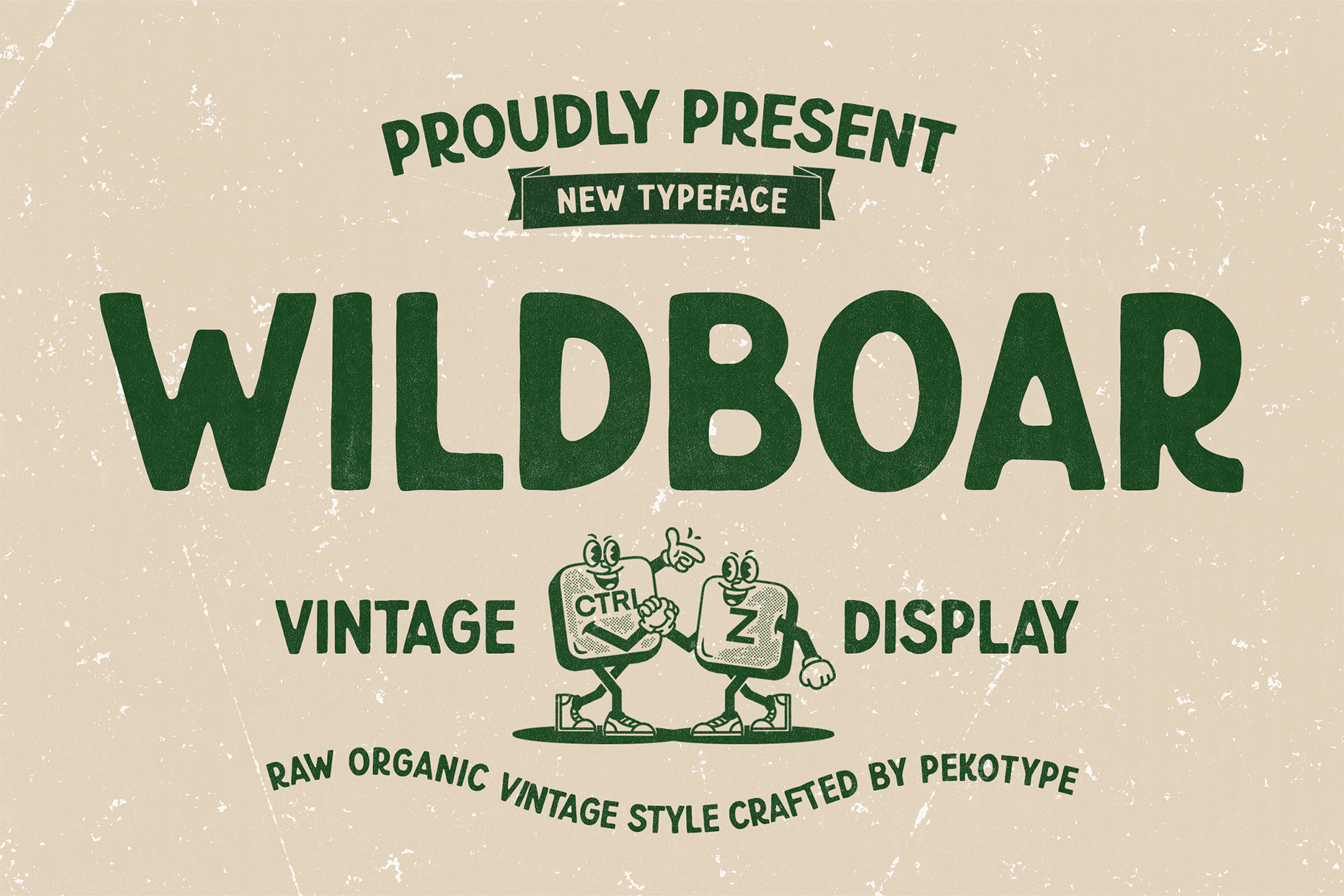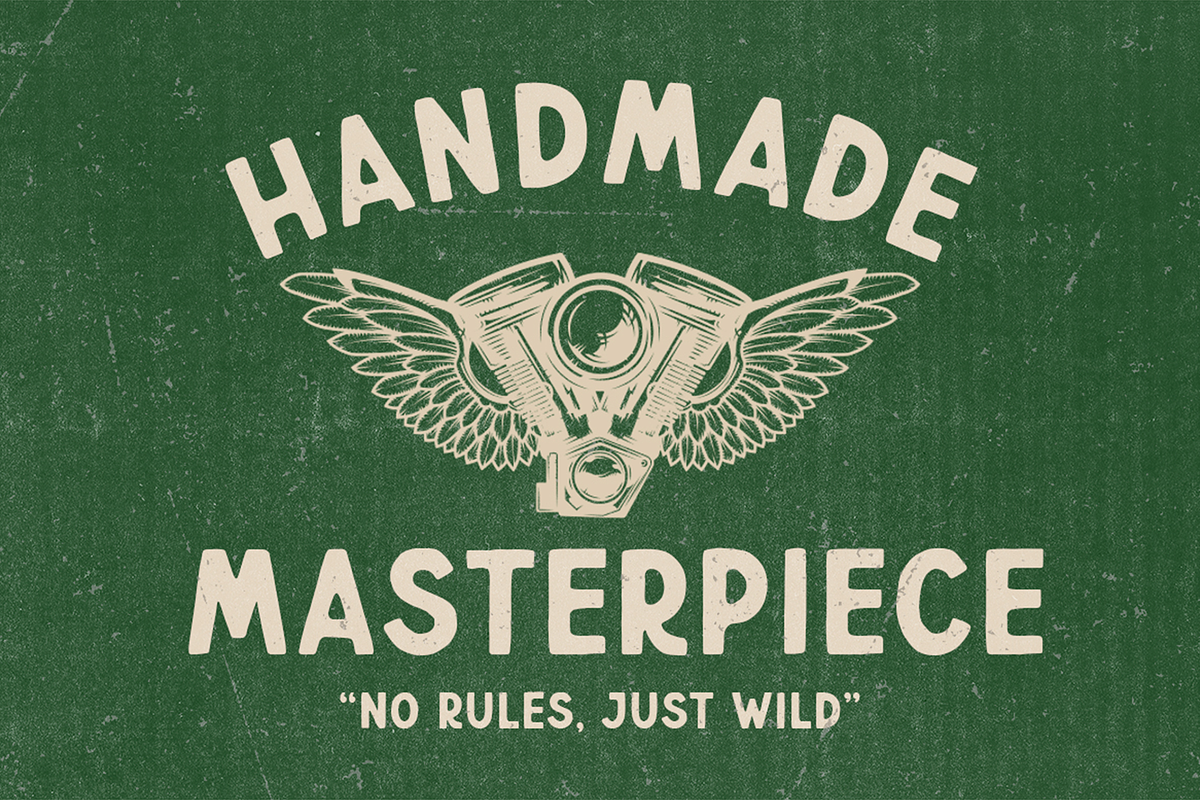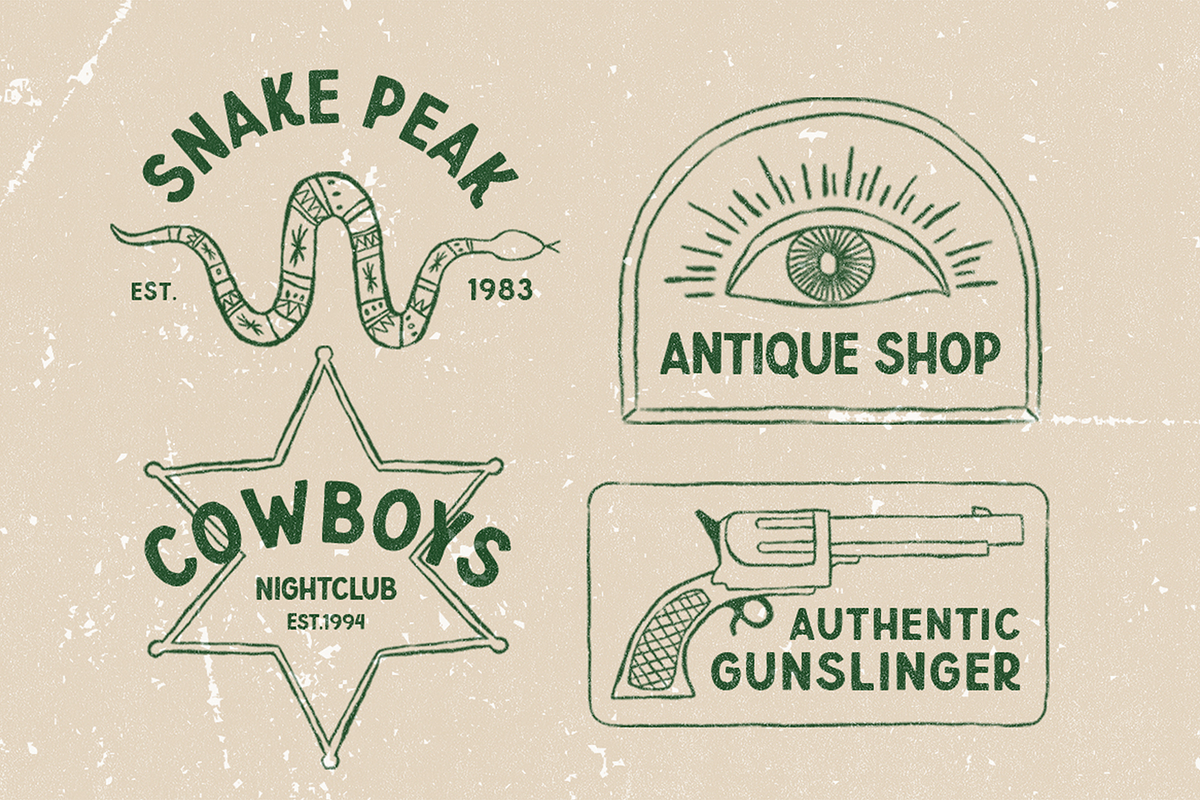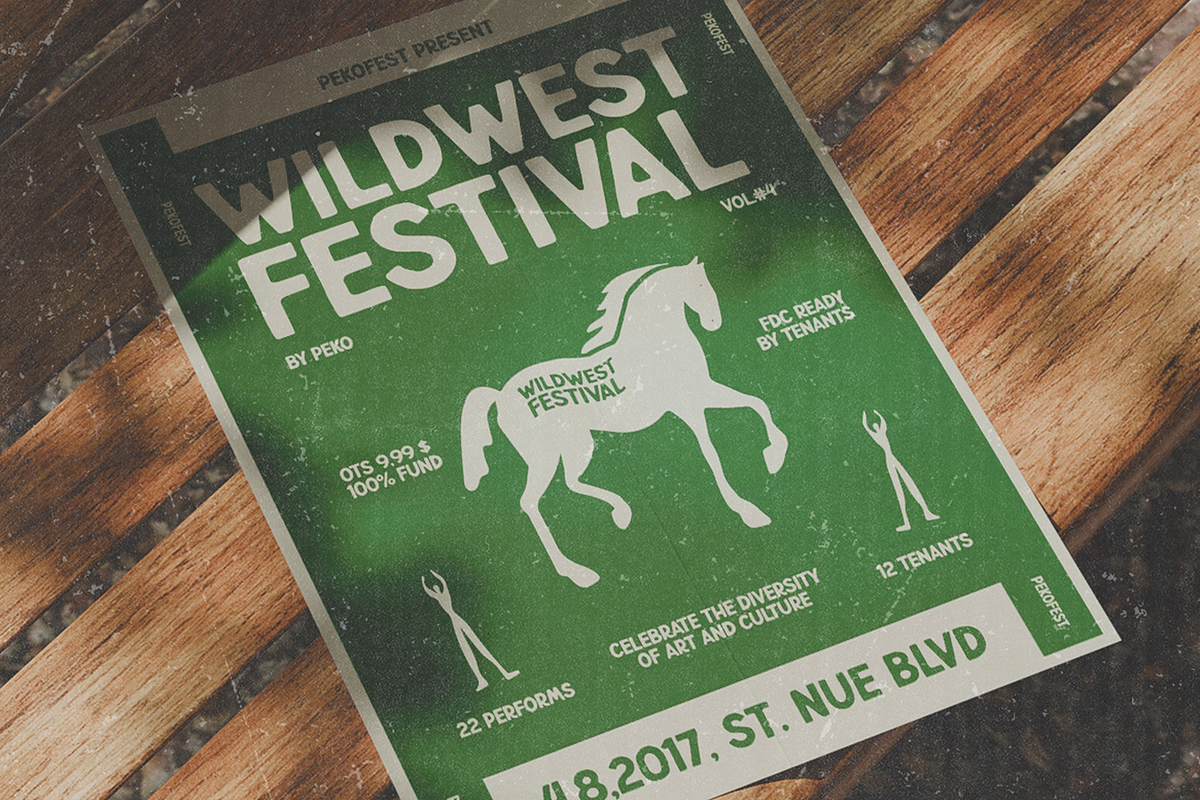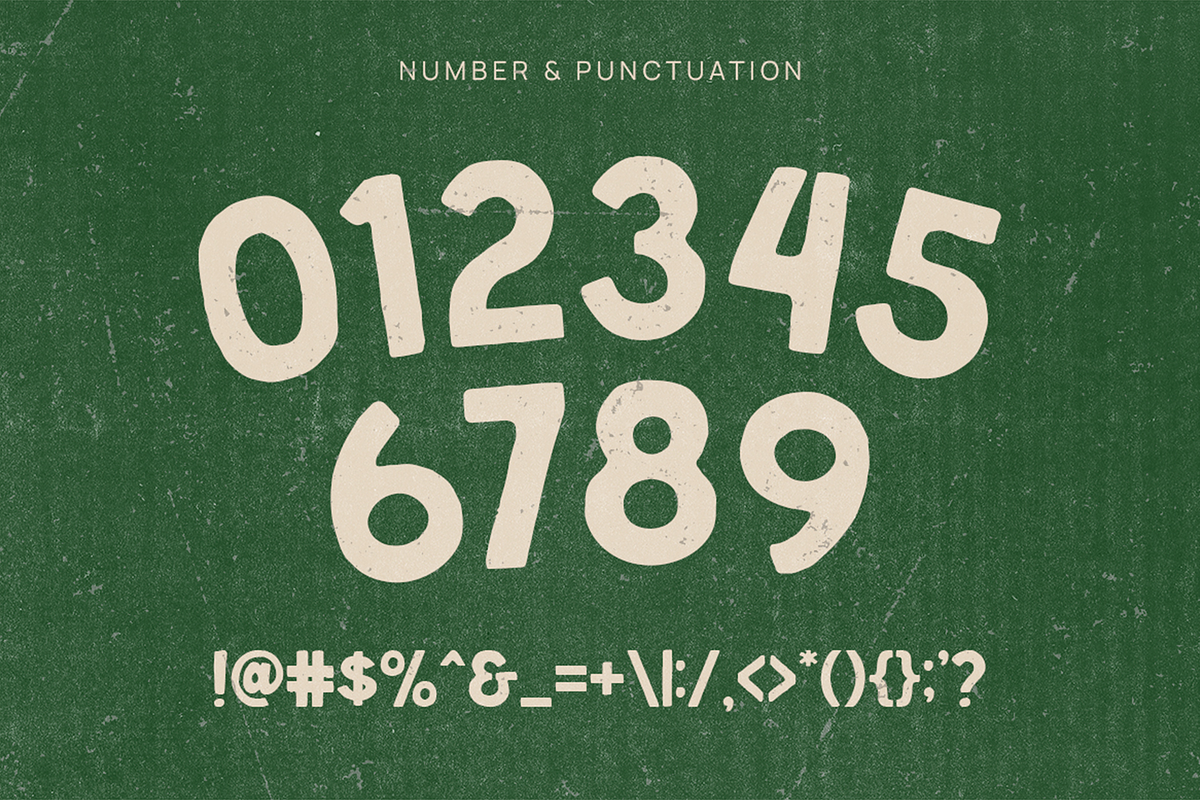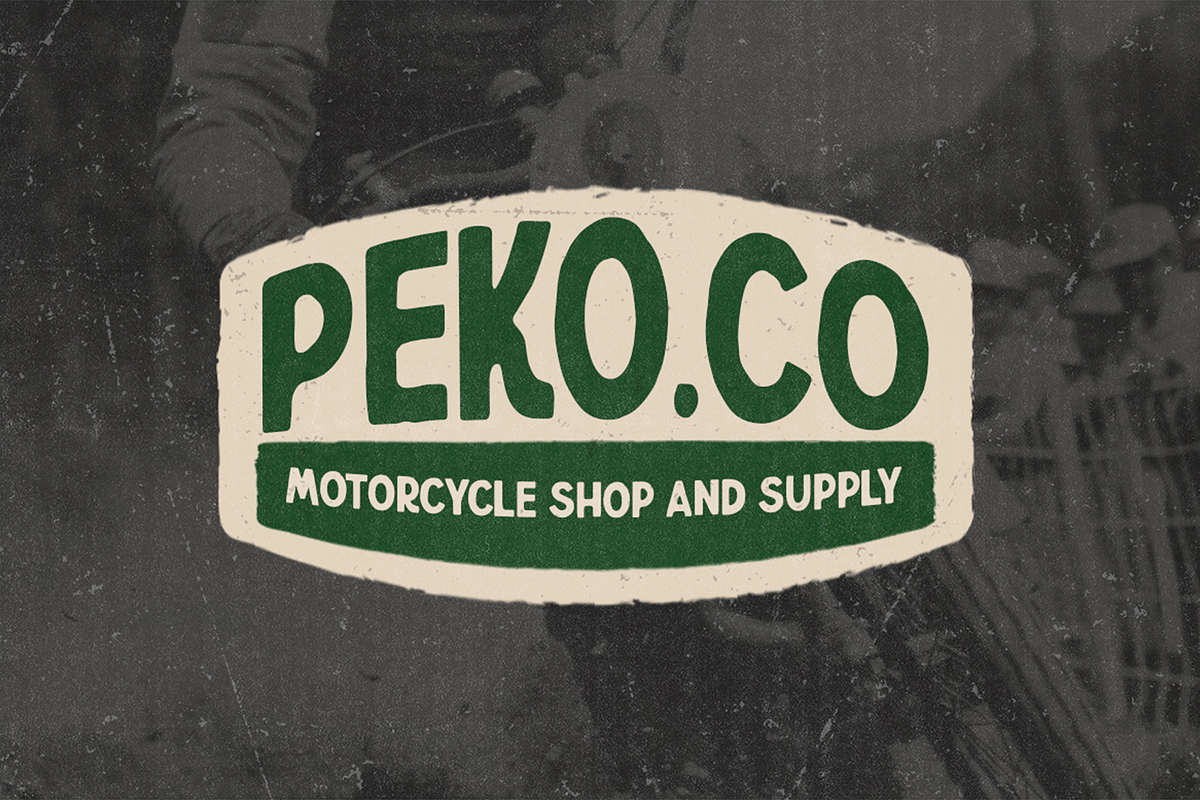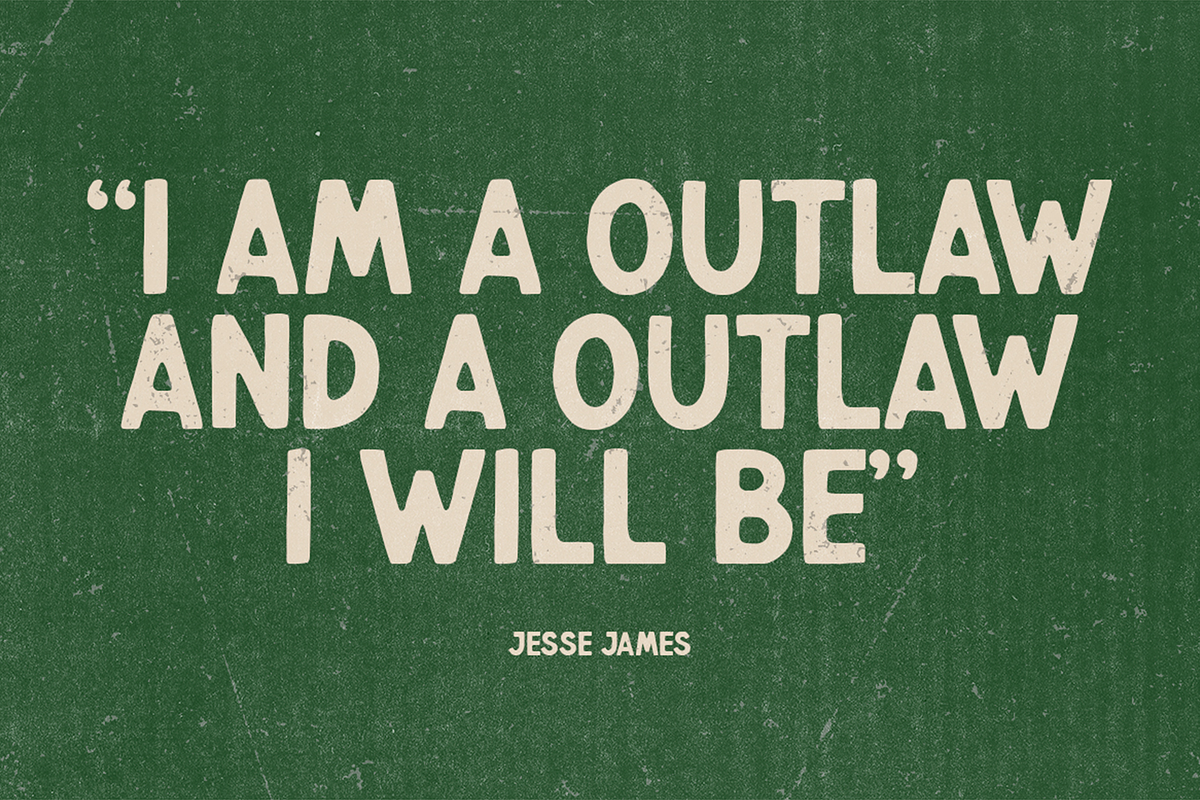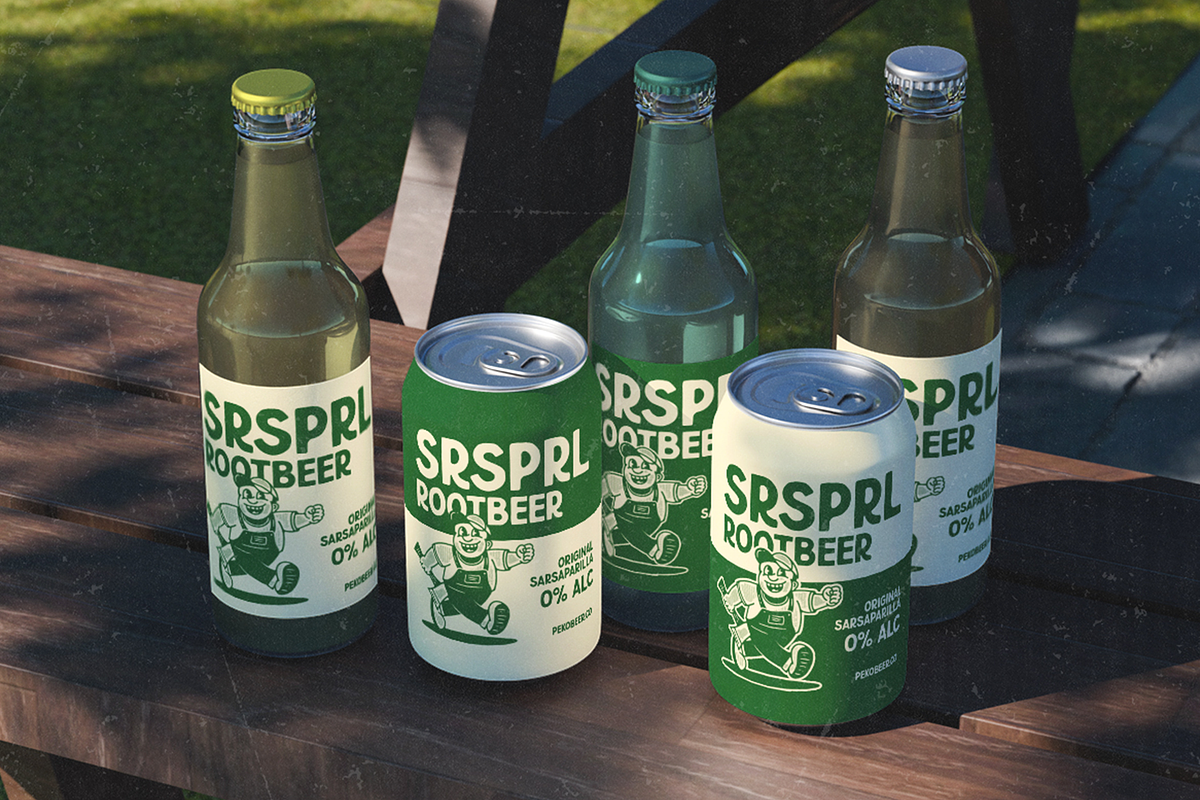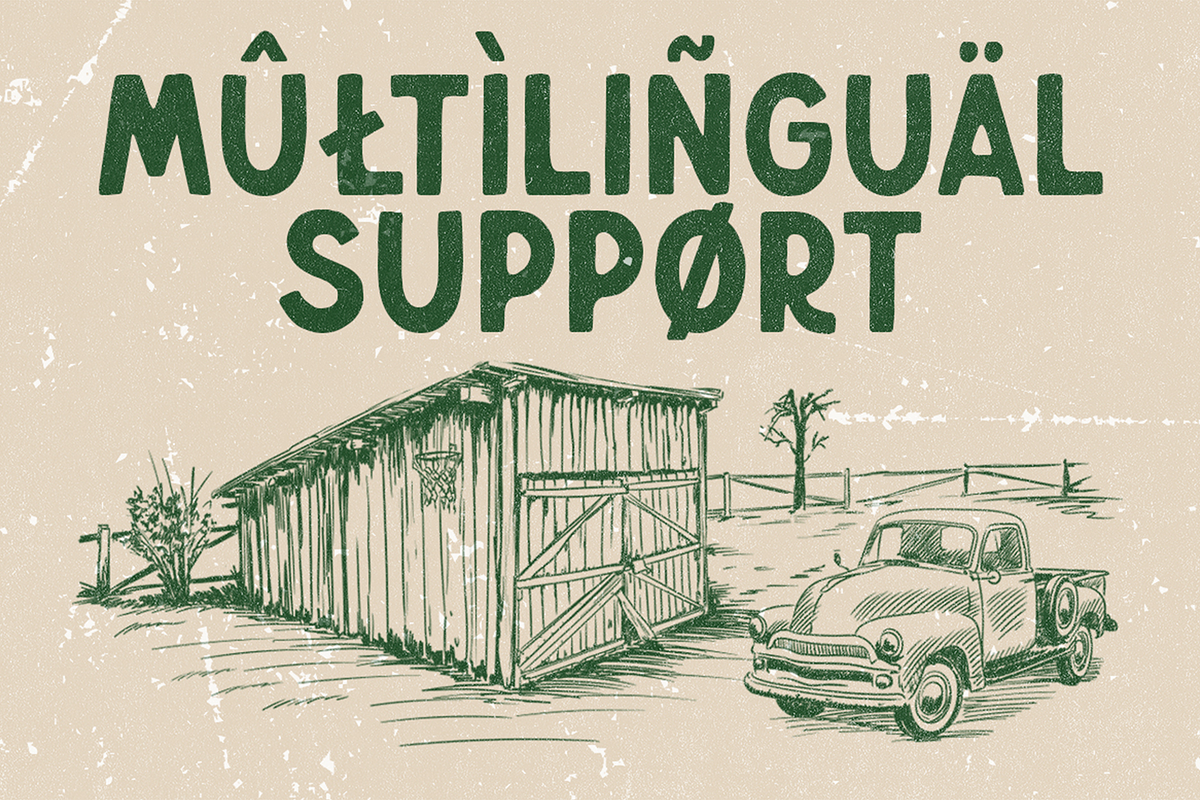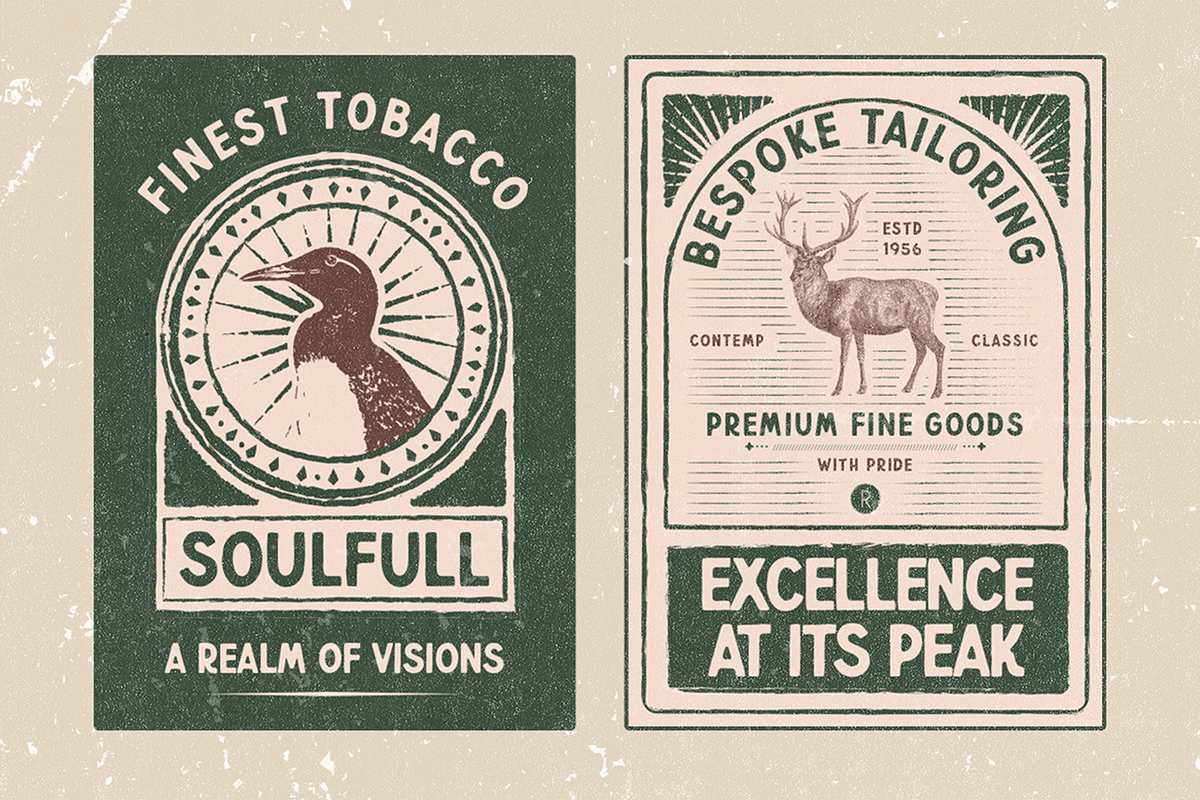
Wildboar - Vintage Display Font
WILDBOAR is a vintage display font with a rugged, handcrafted look inspired by old western signs, classic labels, and outdoor adventure culture. Its bold and slightly rough character gives your design a strong, authentic feel while keeping it fun and easy to read.
Perfect for vintage branding, packaging, posters, signage, badges, labels, café identities, motorcycle themes, festival graphics, product packaging, and outdoor-inspired projects. WILDBOAR works great when you want a design that feels bold, rustic, and full of character.
All Caps
Number, Symbol, & Punctuation